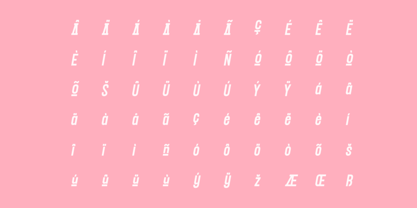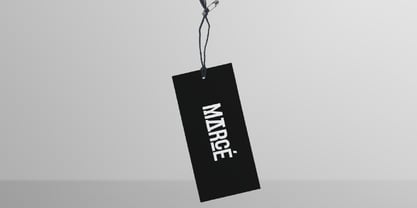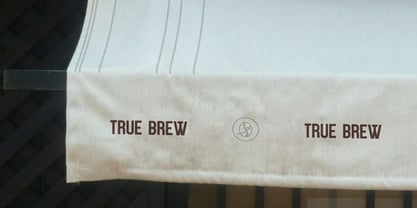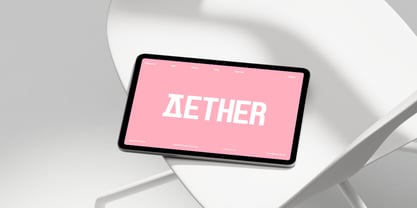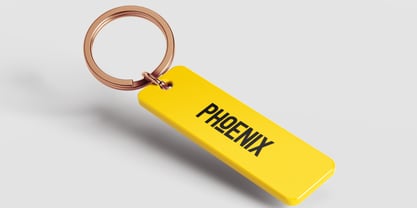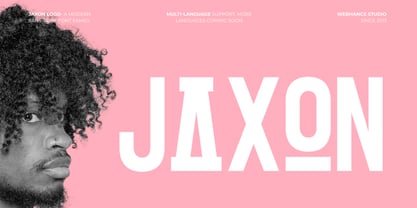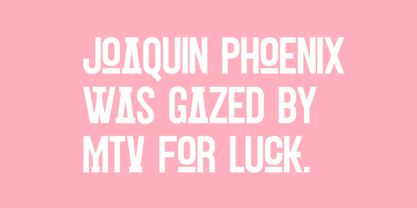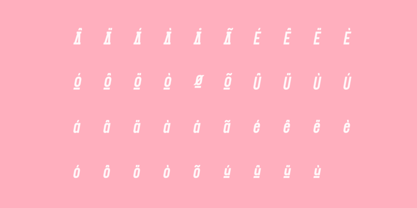
Jaxon Display
by Webhance
The Jaxon Display Font Family was designed by Ancy George and published by Webhance. Jaxon Display contains 2 styles and family package options. More about this family
Jaxon is your perfect choice when clarity, balance, and modern character matter most. Built with geometric structure and contemporary style, Jaxon blends clean lines, confident curves, and precise proportions to create a strong and versatile visual voice. Whether you are working on branding, logos, websites, or marketing designs, Jaxon brings a refined and professional presence to every project. More than just a typeface, Jaxon is designed for real creative work. From bold headlines to subtle brand identities, this font family adapts easily across digital and print platforms. Jaxon helps your designs communicate with confidence, simplicity, and modern elegance, making it a reliable partner for today’s designers.
Designers: Ancy George
Foundry: Webhance